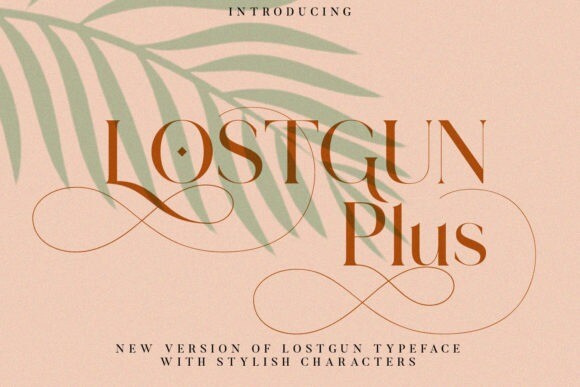
Lostgun Plus Font
Lostgun Plus is a new version of Lostgun typeface, it is a stunning, classy upper and lowercase typeface that looks incredible in both large and small settings. Best used as a display for headings and logos, Lostgun plus has clean lines and smooth curves that gives any project an extra touch of class. This font is PUA encoded which means you can access all of the amazing glyphs and ligatures with ease!